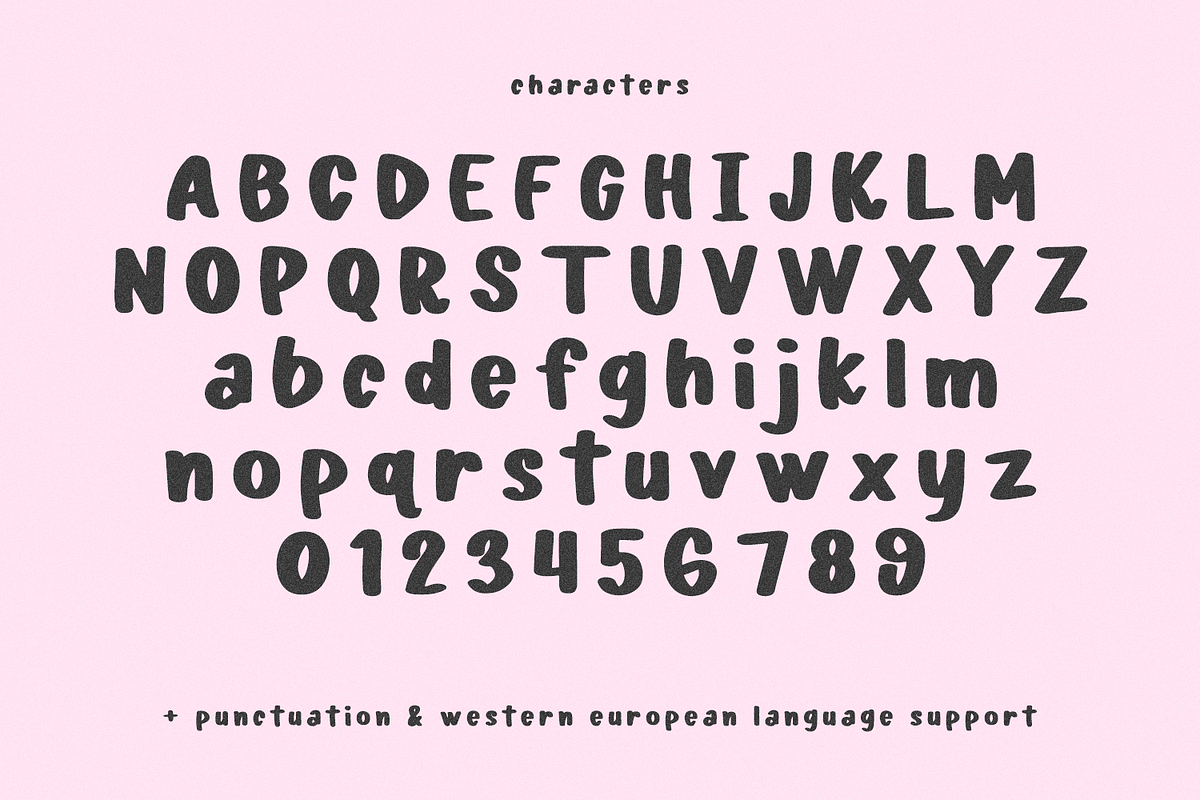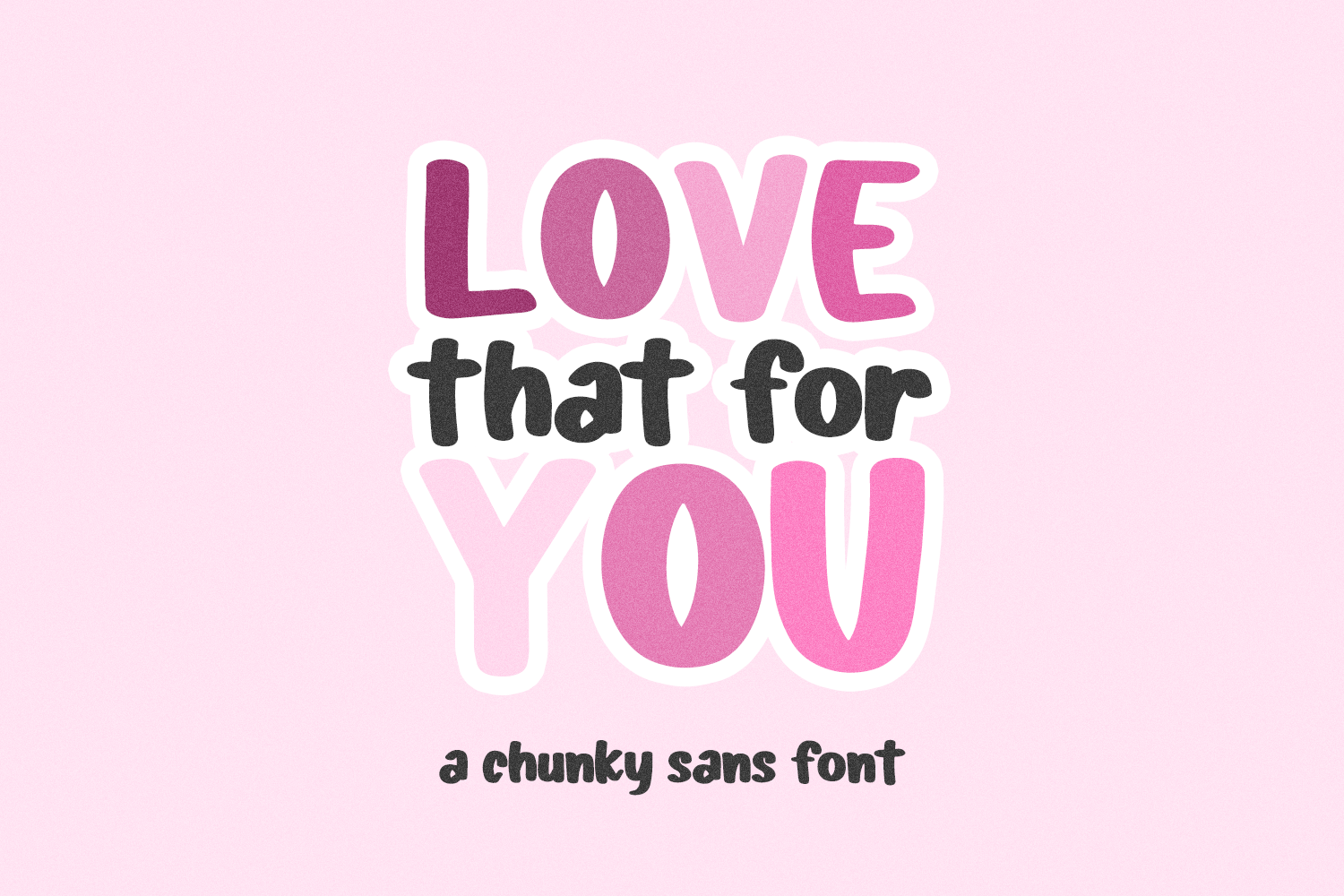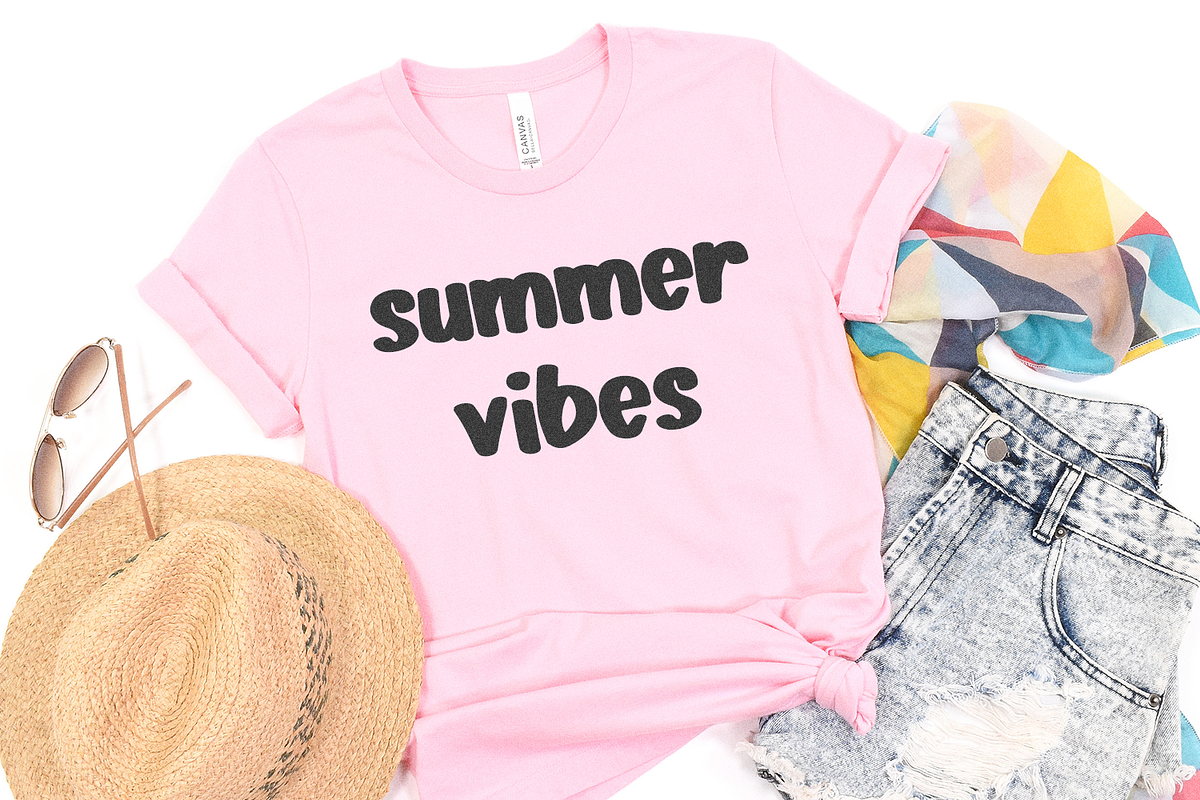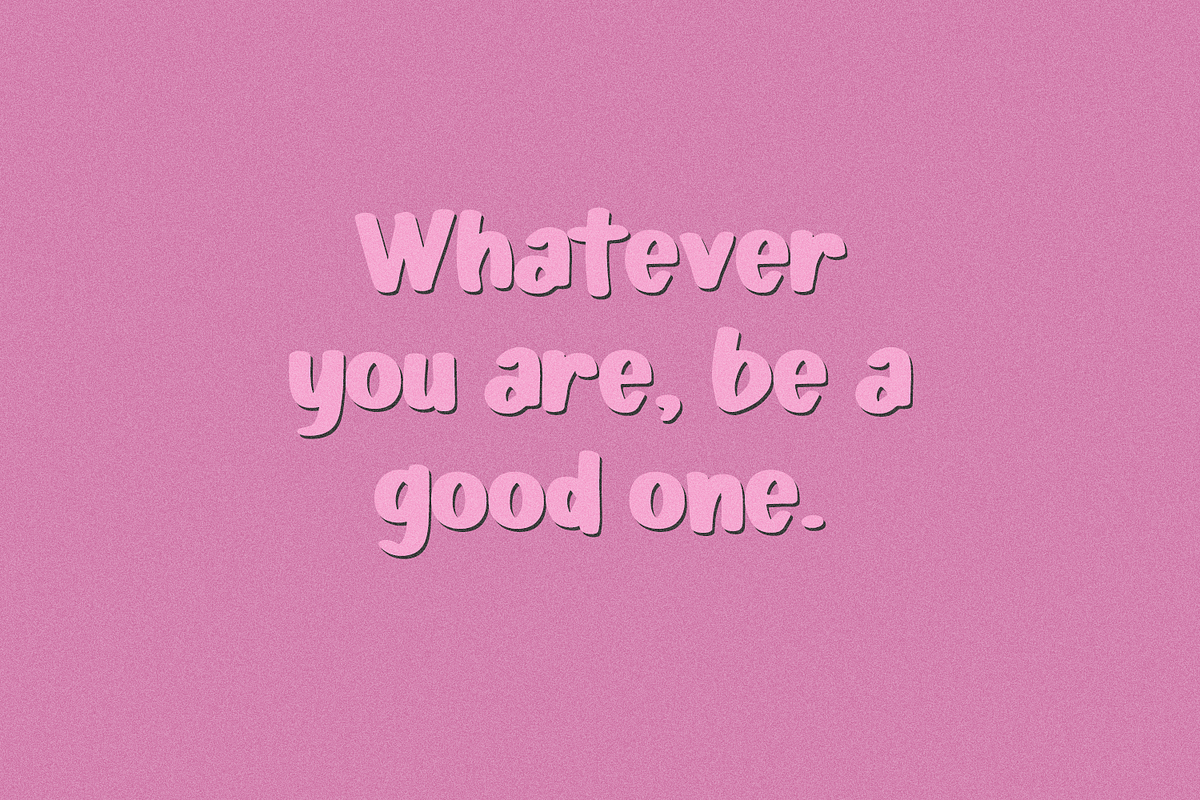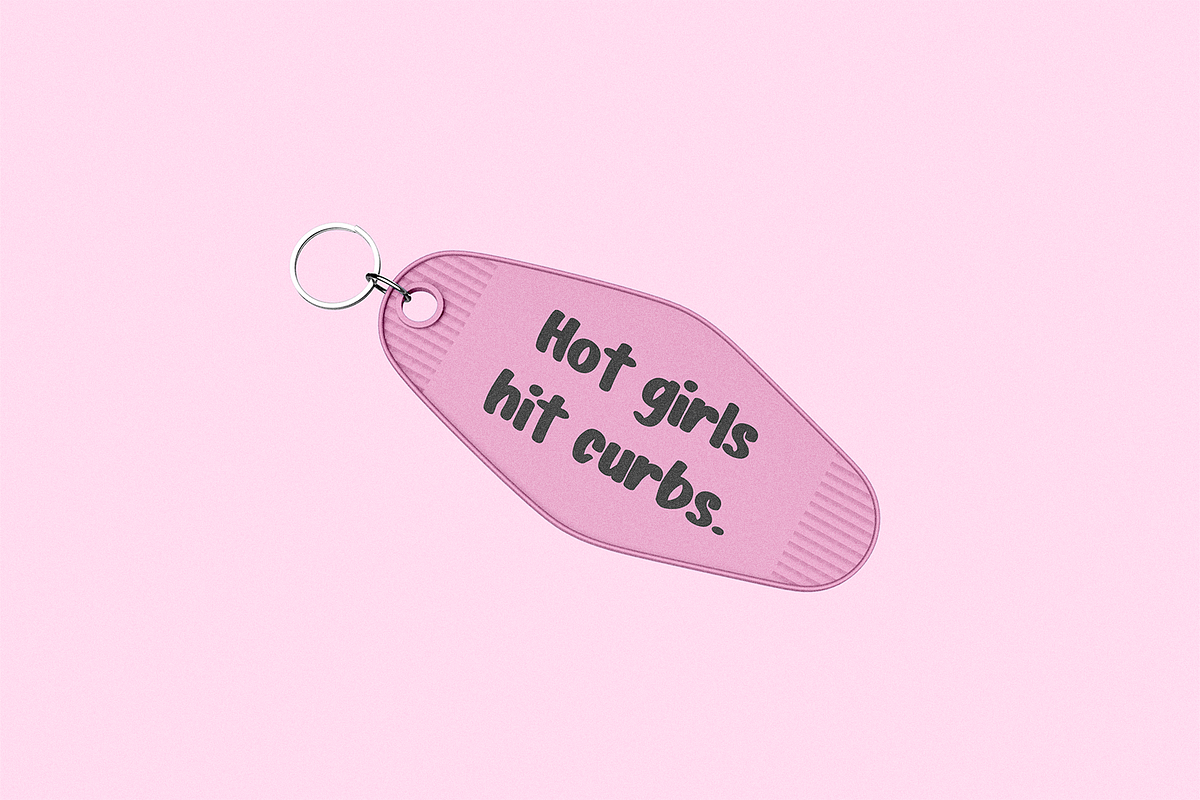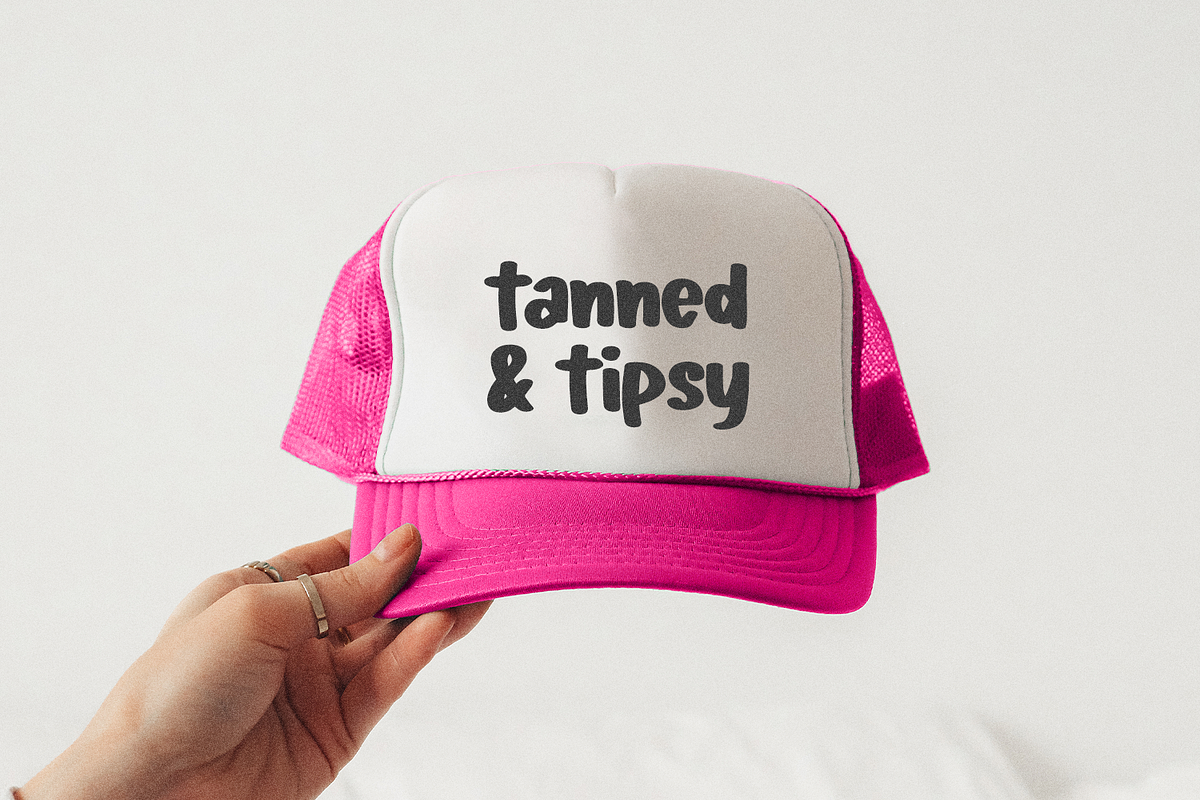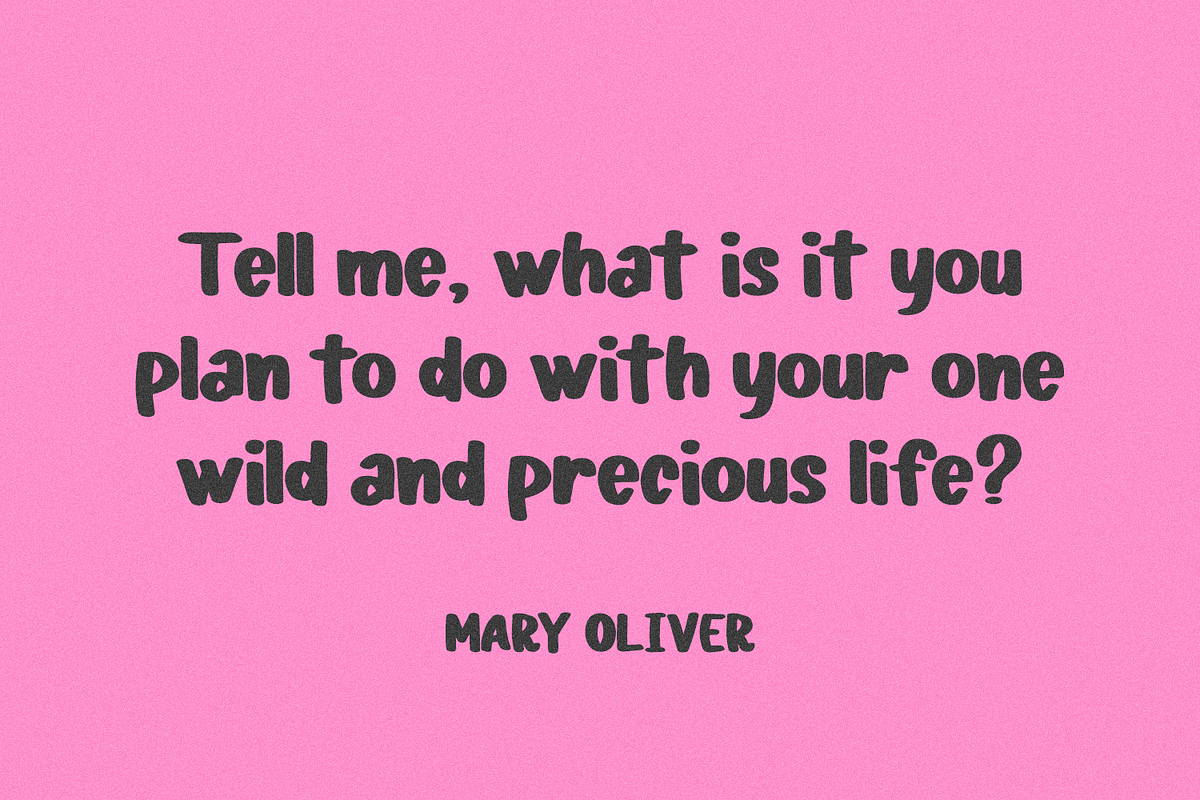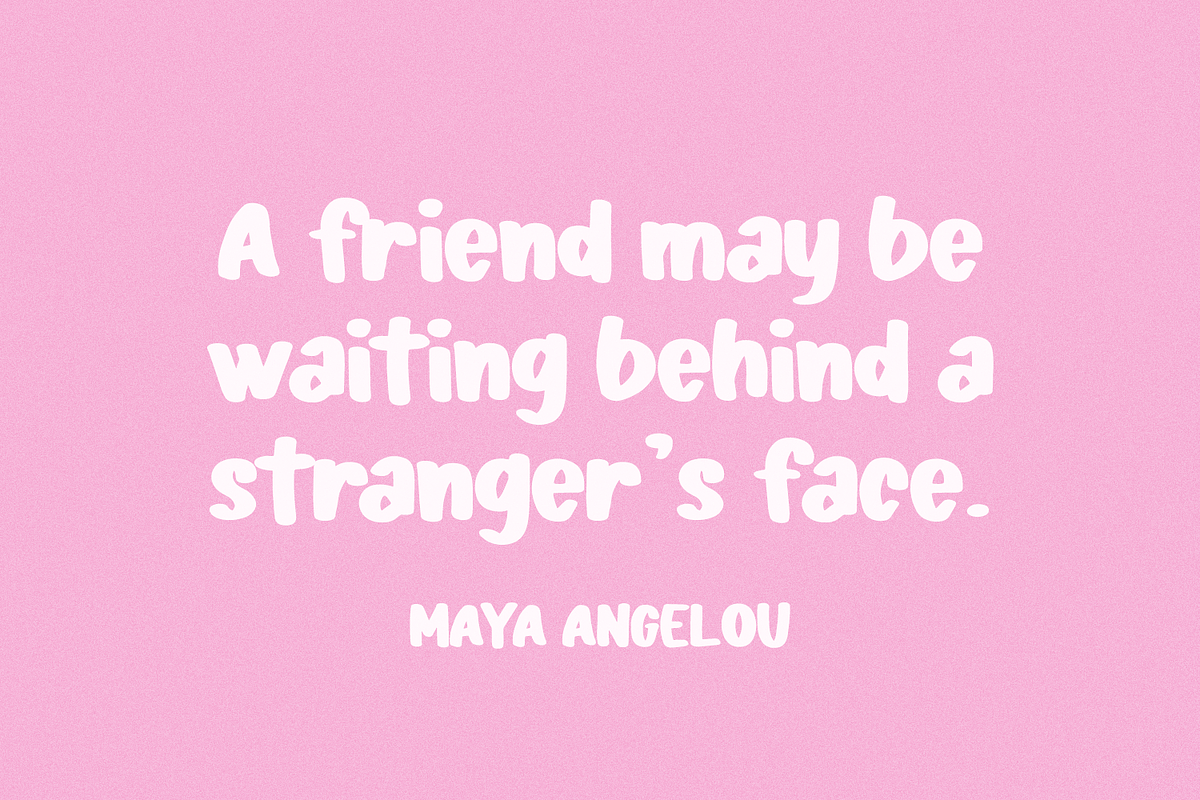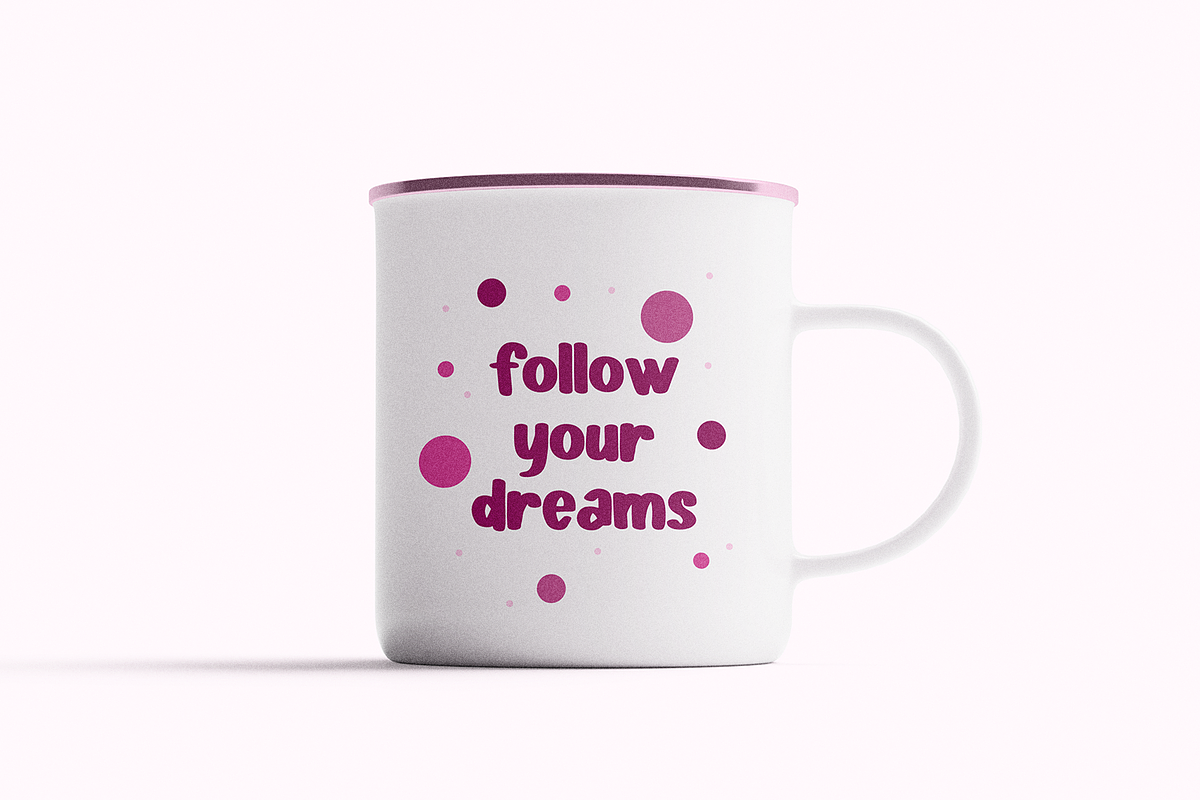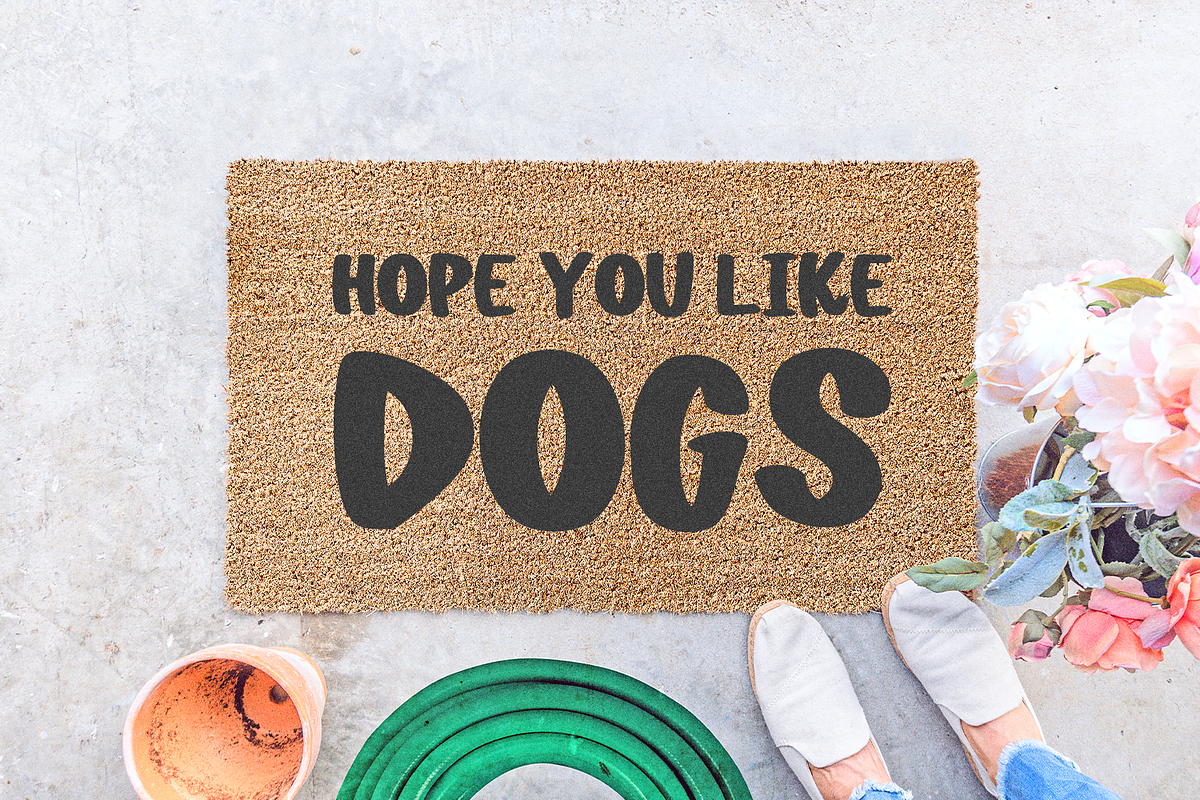
Love That For You Sans Font
Love That For You Sans is a cute sans font. Love That For You is chunky and very legible. This font is a good fit for logos & branding, greeting cards, painted banners, digital planners, note-taking apps, Cricut, Silhouette, & Canva.
- full upper + lowercase characters
- numbers + punctuation
- Western European language support - English, French, Spanish, Portuguese (Brazil), Portuguese (Portugal), Italian, German (Germany), German (Austria), Dutch, Danish, Swedish, Norwegian (Bokmål and Nynorsk), Finnish, Icelandic, Irish, Welsh